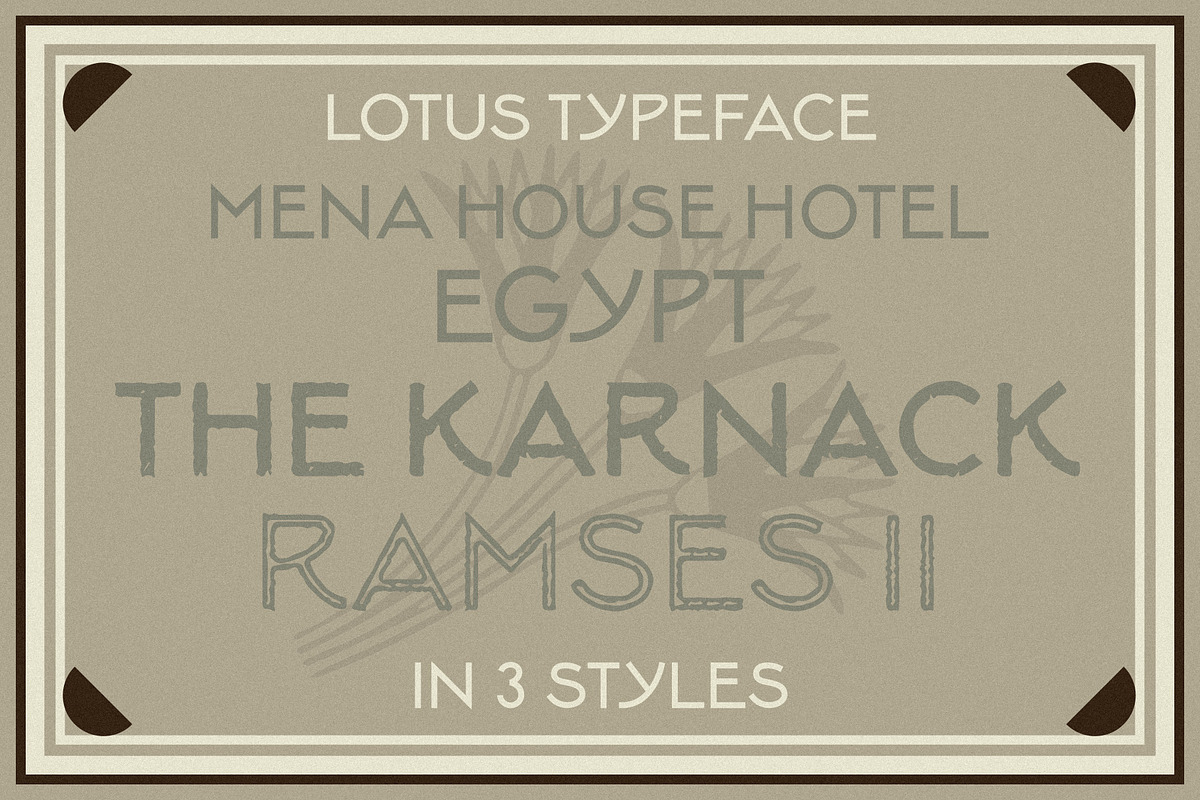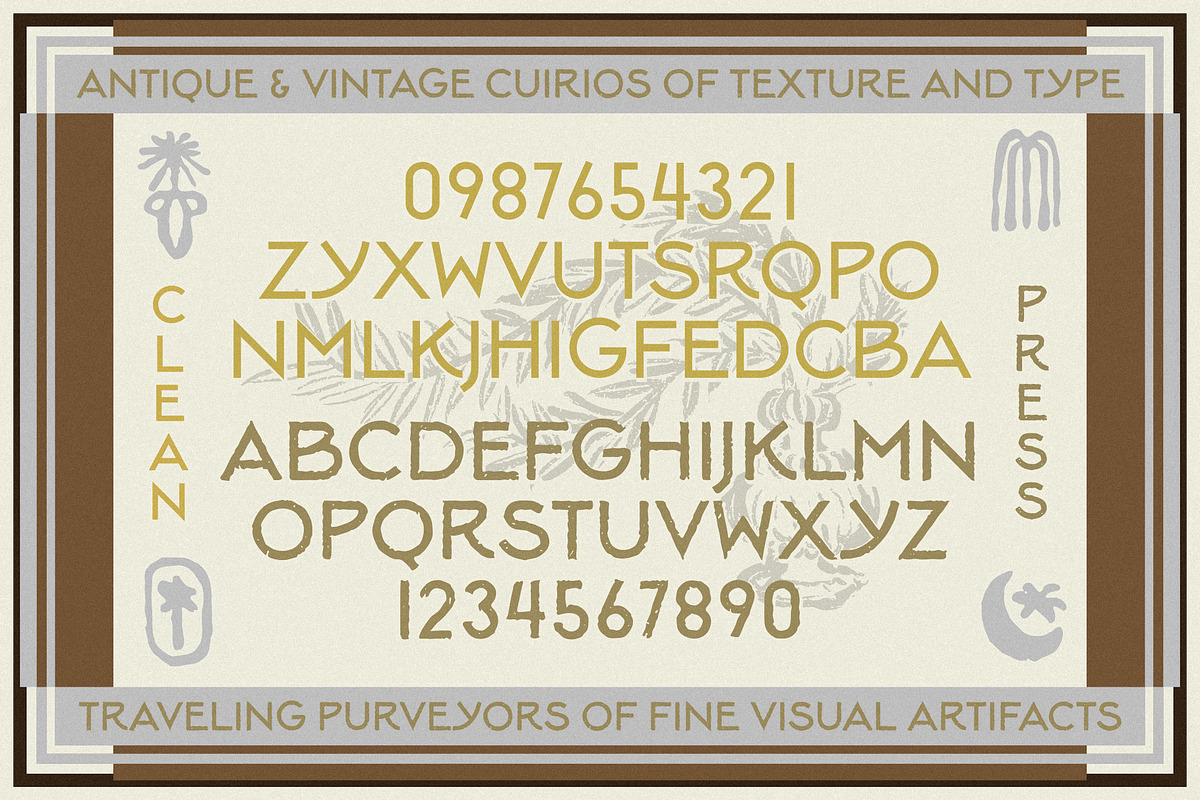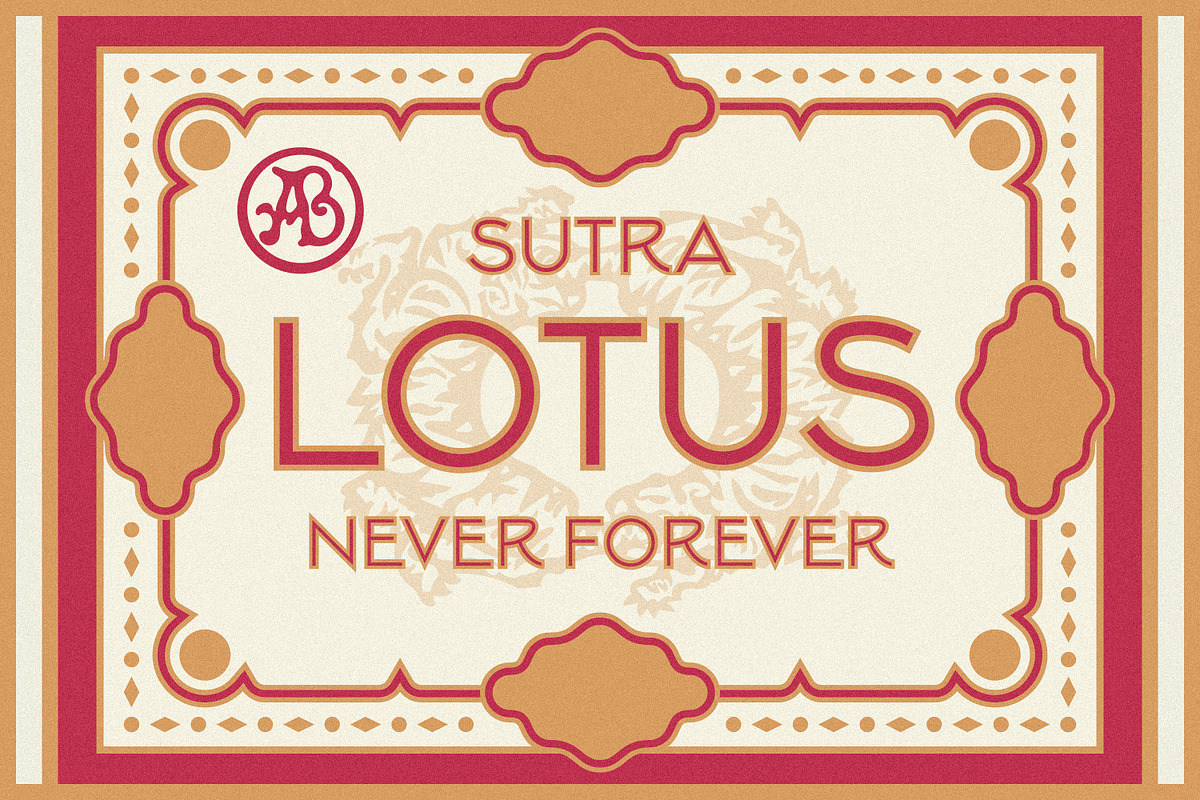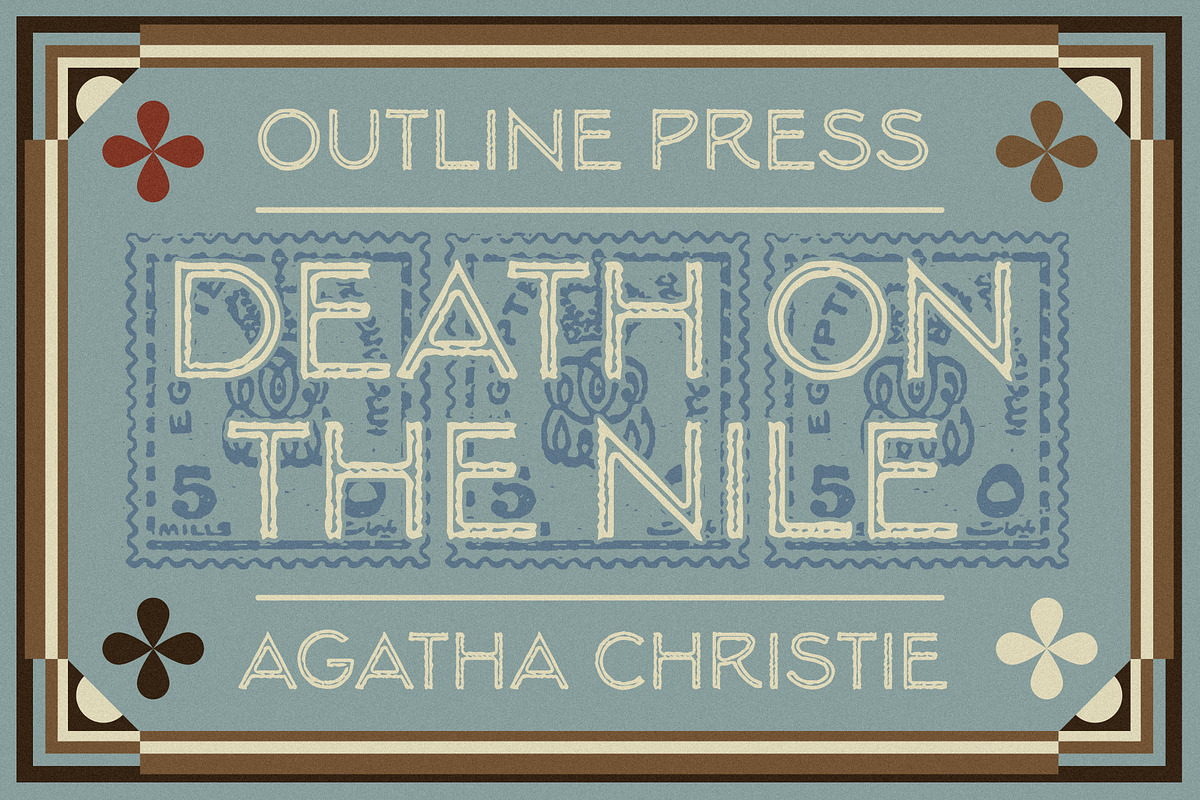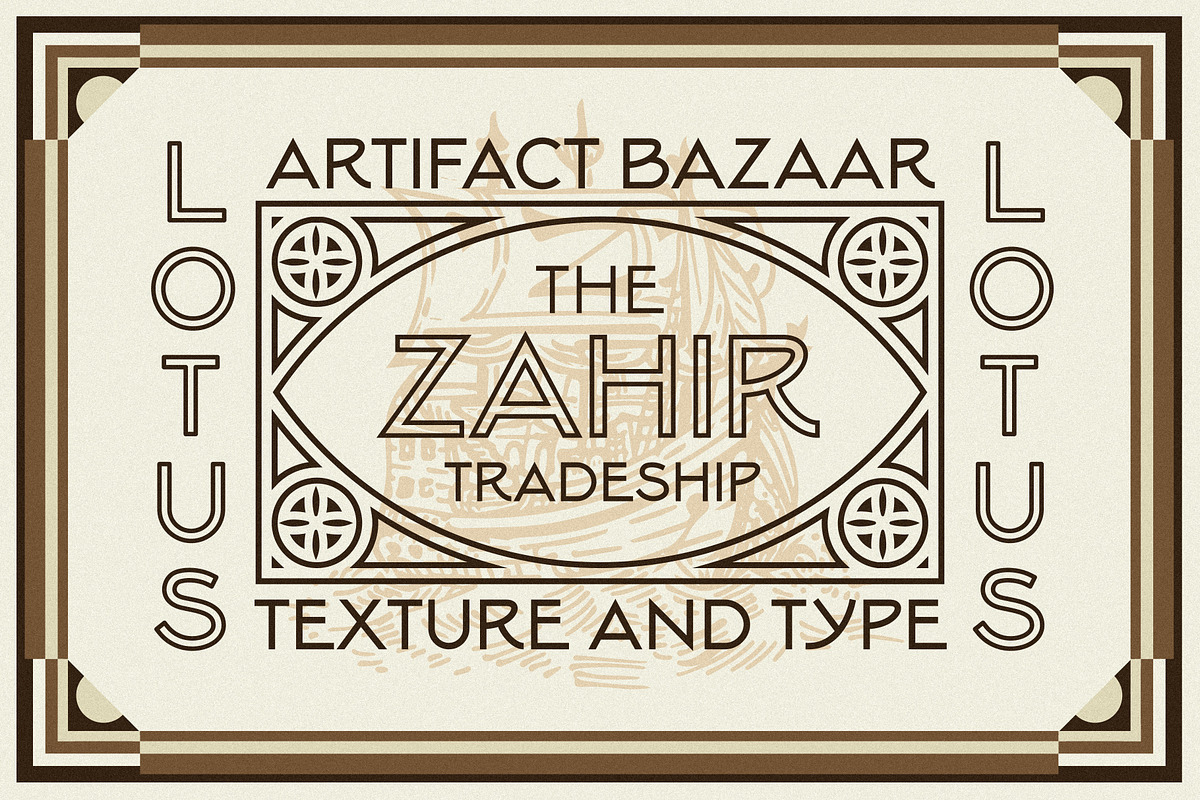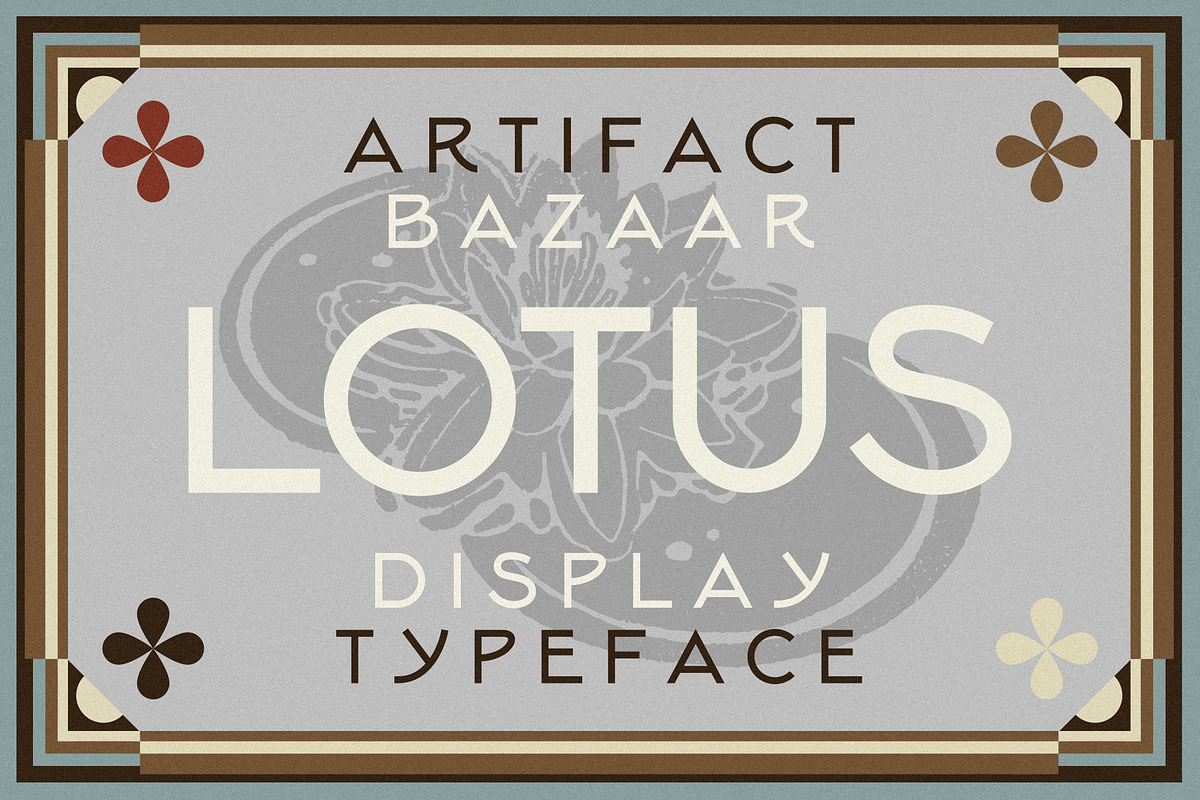
Lotus | Egyptian Sans
Lotus is a classic sans serif design that harkens back to a time of exotic travels, daring discoveries, and lavish locales. Think steamer trunks strapped atop the grand tourer as it pulls into the valet of the most luxurious hotel on the Nile - the art deco key fobs, the silver room numbers, the inky travel stamps, the old mystery novel and personalized journal stationary waiting for you on the polished walnut secretary. Those are written in LOTUS.
All numbers, punctuation, special characters
Vintage Textured Versions
3 styles
Rough
Outline Press